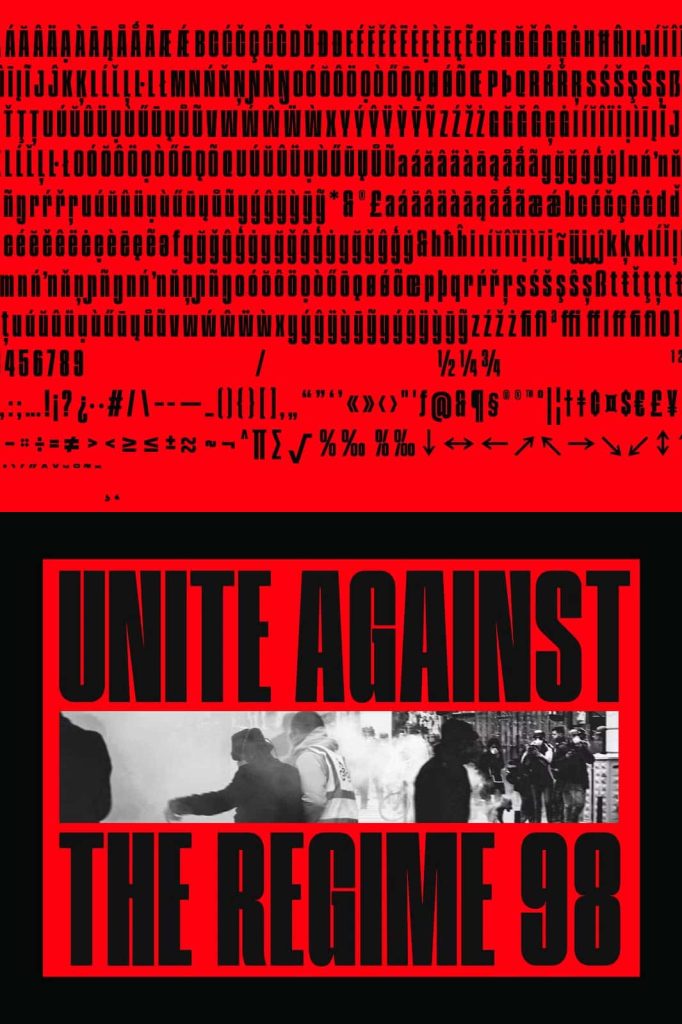
FBS Machro Modern Condensed Font
FBS Machro is a modern condensed font that delivers bold impact and dynamic energy in every letterform. Designed to capture attention instantly, this typeface empowers designers to create strong visual statements across both print and digital platforms. Its condensed structure allows you to maximize space without sacrificing readability, making it an excellent choice for projects that demand clarity and presence.
Bold Design That Commands Attention
FBS Machro uses powerful, bold characters to create a confident and assertive tone. Each letter is crafted to stand out, helping your message cut through visual noise. Whether you design for advertising, branding, or editorial layouts, this font ensures that your headlines and key elements remain highly visible and impactful.
The strong geometry and clean lines give FBS Machro a modern appearance that fits perfectly with contemporary design trends. It avoids unnecessary decoration and focuses on delivering a clear, direct visual message. This approach allows designers to communicate ideas quickly and effectively.
Condensed Structure for Maximum Efficiency
The condensed nature of FBS Machro allows you to fit more content into limited space while maintaining a clean and organized layout. This feature becomes especially valuable when working with tight design constraints such as posters, banners, or mobile screens. You can create bold headlines and compact text blocks without compromising legibility.
By using a condensed format, the font helps you build strong visual hierarchy. You can emphasize key messages while keeping your overall design balanced and uncluttered. This efficiency makes it a practical choice for both large-scale and small-scale design applications.
Perfect for Headlines and Display Use
FBS Machro excels in headline and display settings where impact matters most. Its bold strokes and compact proportions make it ideal for titles, banners, and promotional graphics. Designers can rely on this font to create eye-catching compositions that draw viewers in and guide their attention to important information.
Use it in posters, advertisements, and social media visuals to create strong focal points. The font’s dynamic presence ensures that your message stands out, even in crowded visual environments.
Versatile Across Print and Digital Media
This font adapts seamlessly to both print and digital formats. In print design, it maintains sharp edges and consistent spacing, ensuring professional results in posters, packaging, and editorial layouts. In digital environments, it performs equally well on screens, delivering crisp and readable text across websites, apps, and social media platforms.
Its versatility allows designers to maintain consistency across multiple channels. You can use FBS Machro in branding materials, marketing campaigns, and user interfaces without worrying about performance or readability issues.
Enhance Branding and Visual Identity
FBS Machro provides a strong foundation for building modern brand identities. Its bold and structured appearance communicates confidence, innovation, and forward-thinking design. Brands that want to stand out in competitive markets can use this typeface to establish a distinctive and memorable visual style.
Pair FBS Machro with complementary fonts to create balanced typography systems. Use it for logos and headlines while supporting it with simpler typefaces for body text. This approach helps you maintain clarity while adding visual interest to your designs.
Designed for Creative Impact
FBS Machro encourages designers to think boldly and act creatively. Its dynamic style supports a wide range of design directions, from minimal modern layouts to high-energy promotional graphics. The font’s clean structure ensures that your designs remain professional while still expressing creativity and individuality.
With its combination of strength, efficiency, and versatility, FBS Machro becomes a reliable tool for any designer looking to create impactful work. It transforms simple text into a powerful visual element that enhances communication and elevates overall design quality.
Make Your Designs Stand Out
When you need a font that delivers both style and performance, FBS Machro rises to the challenge. It helps you create designs that capture attention, communicate clearly, and leave a lasting impression. By integrating this modern condensed font into your projects, you gain the ability to produce bold, dynamic visuals that resonate with your audience.